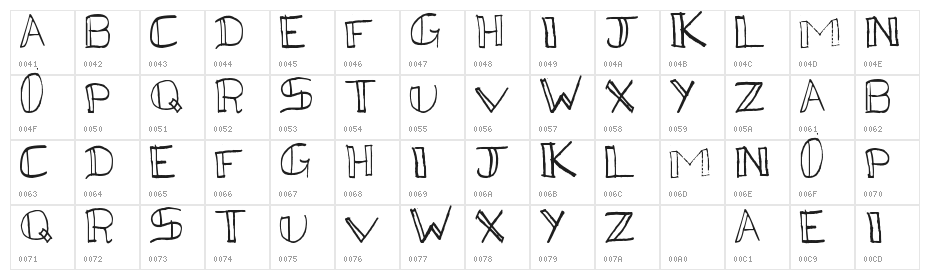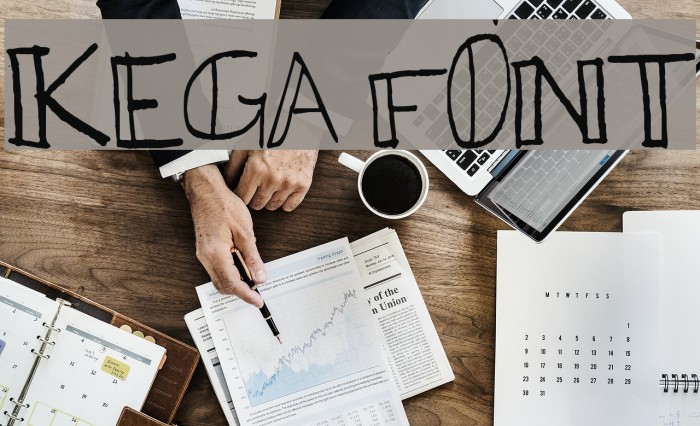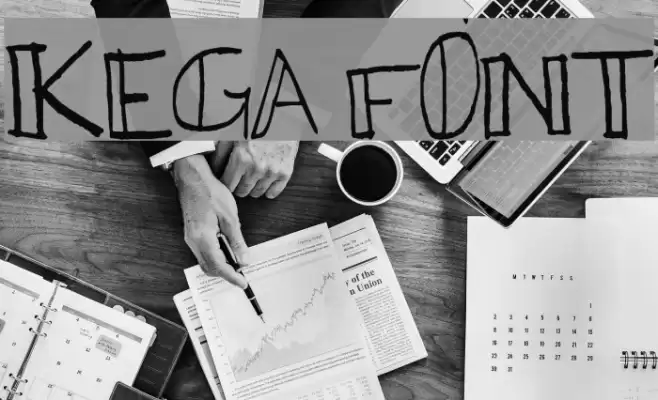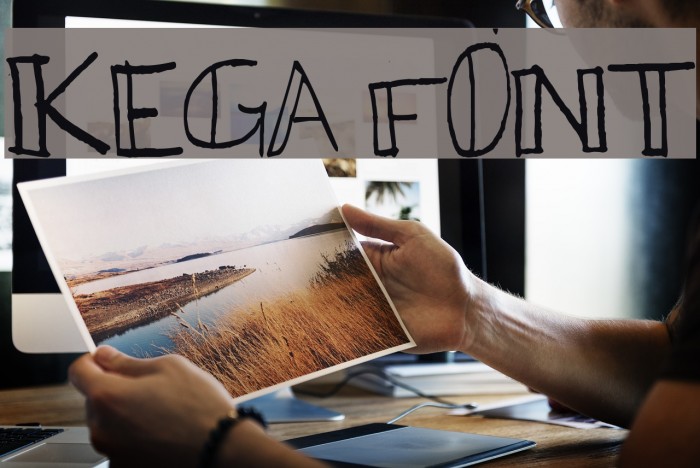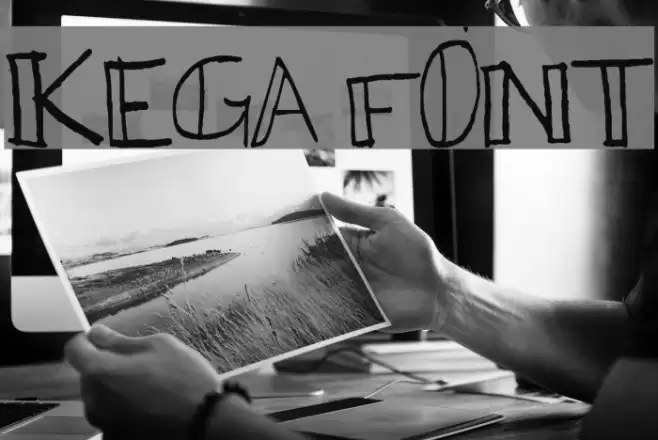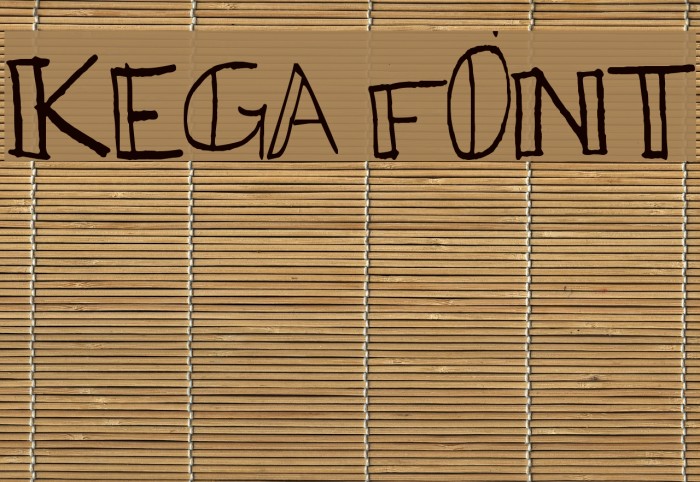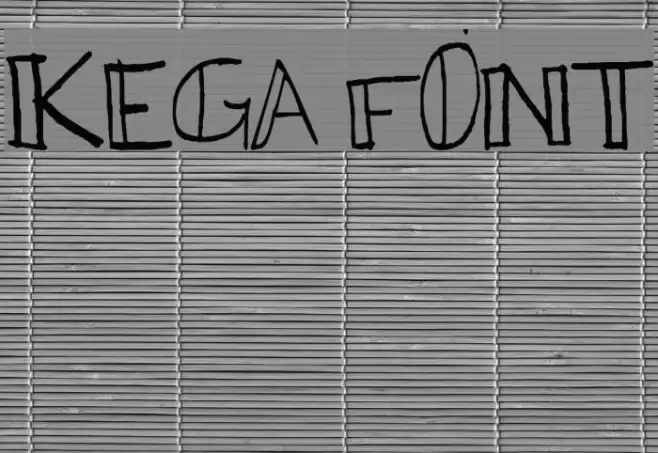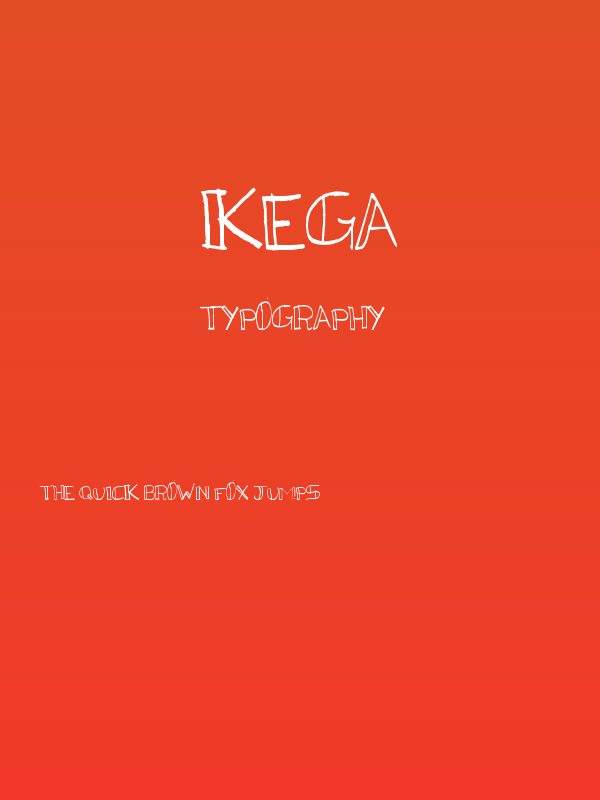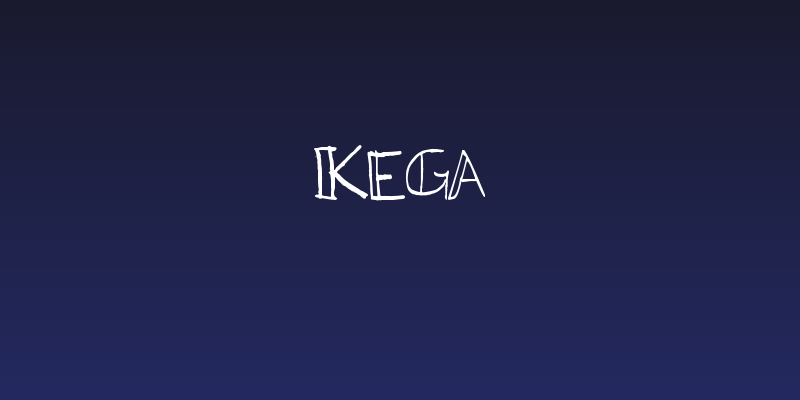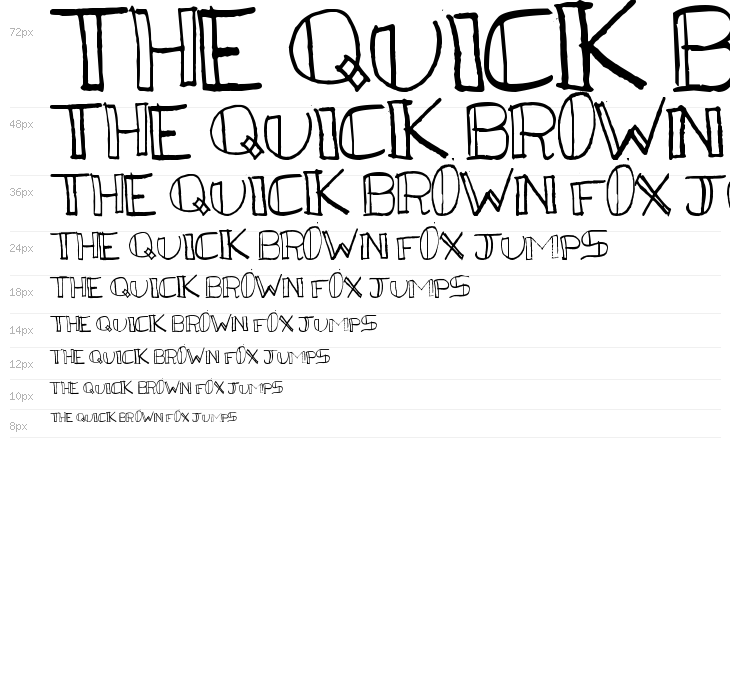
Kega Font
Kega Description
This font features a bold, hand-drawn style with a playful and artistic flair. The letters are characterized by uneven strokes and a slightly rough texture, giving it a casual and informal appearance. The uppercase letters are particularly distinctive, with exaggerated curves and angles that add to the font's unique personality. The lowercase letters maintain the same whimsical style, ensuring consistency across the typeface. The numbers and special characters follow suit, with each character exhibiting the same hand-crafted look. This font is ideal for projects that require a touch of creativity and individuality.